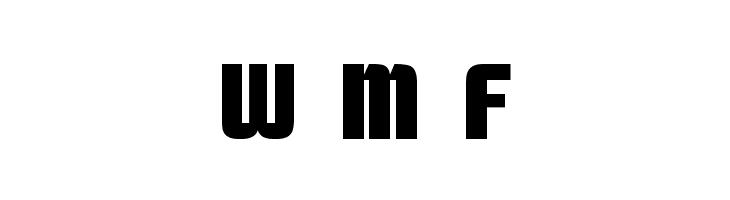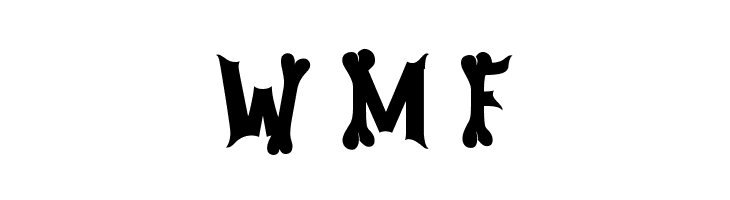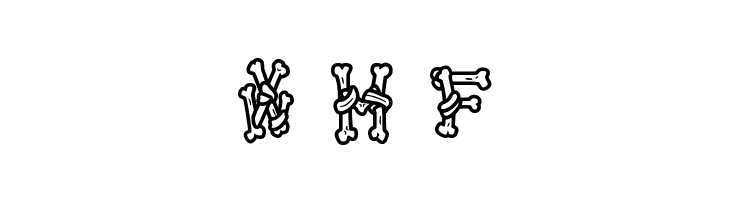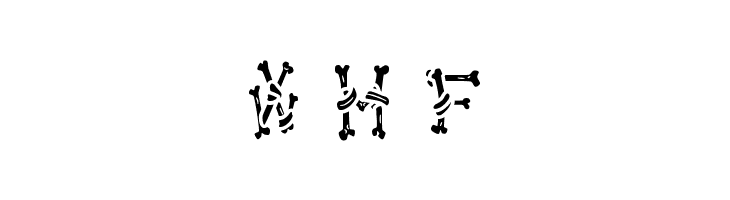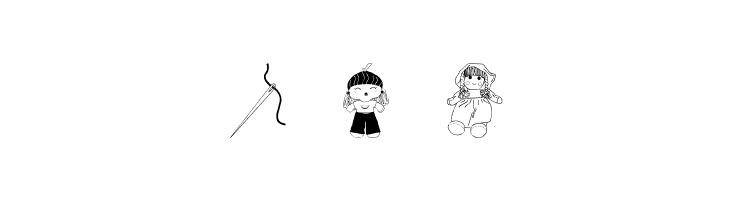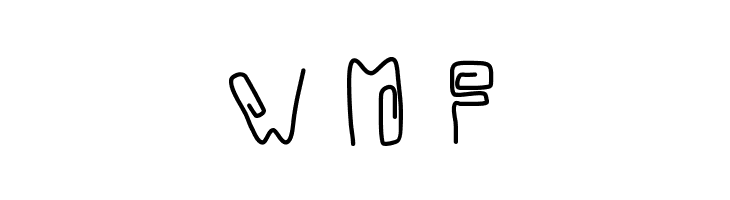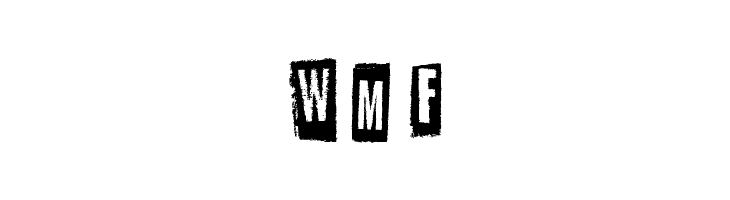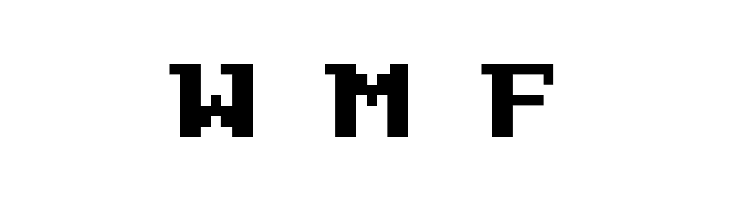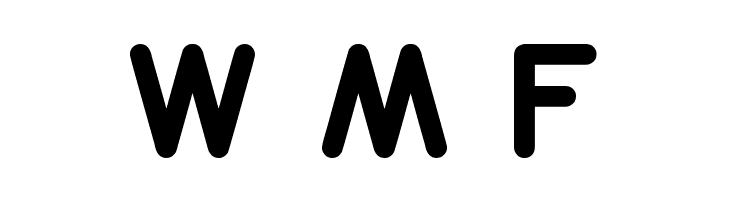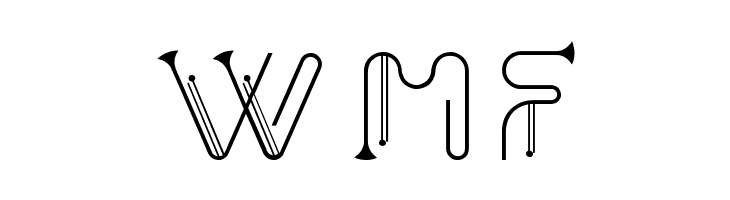
( Fonts by PutraCetol Studio )
A bold, bone-themed decorative display font with a spooky vibe.
( Fonts by Helotype )
Outline decorative font made of cartoon bones.
( Fonts by Helotype )
A bold, bone-themed decorative font with a spooky, playful style.
( Fonts by Harold Lohner - www.haroldsfonts.com )
A bold, modern font with blocky, uniform characters.
( Fonts by www.norfok.com - Norfok® Incredible Font Design - Thomas W. Otto )
A bold, hand-drawn font with a rugged, graffiti-inspired style.
( Fonts by Thomas Ledin - tomledin.com )
A bold, decorative font with a striped, three-dimensional effect.
A bold, geometric font with rounded edges and a modern, playful style.
A bold, rounded font with a modern, geometric style.
( Fonts by www.norfok.com - Norfok® Incredible Font Design - Thomas W. Otto )
A bold, edgy font with dynamic, uneven strokes and a strong visual impact.
A whimsical and decorative font with elongated, curved strokes and playful flourishes.
A playful, tubular font with winding, continuous line letterforms.
( billyargel.blogspot.com/ )
A bold, textured font with a rugged, distressed appearance.
( www.junkohanhero.com )
A bold, distressed font with a vintage, rebellious style.
A bold, hand-drawn font with rugged, uneven strokes and a vintage feel.
A bold, decorative font with a distressed, grunge texture, ideal for thematic designs.
A decorative script font with scalloped frames around each character.
( Carbon Chaos - alextade.me/ )
A playful, modern font with rounded edges and consistent stroke width.
( FontGrube AH - Andreas Höfeld - www.fontgrube.de/en/ )
A distressed, textured serif font with a vintage, handcrafted appearance.
A bold, geometric font with strong, uniform strokes and a modern aesthetic.